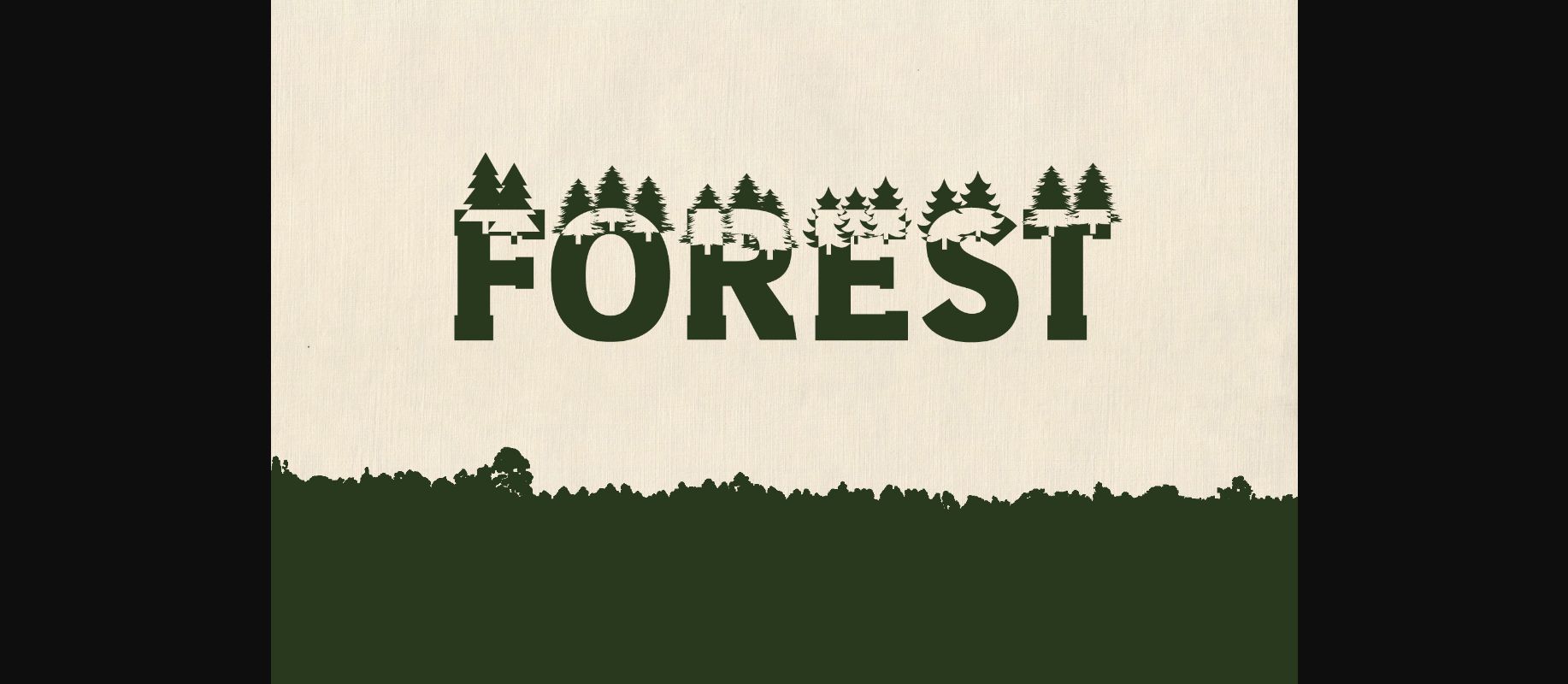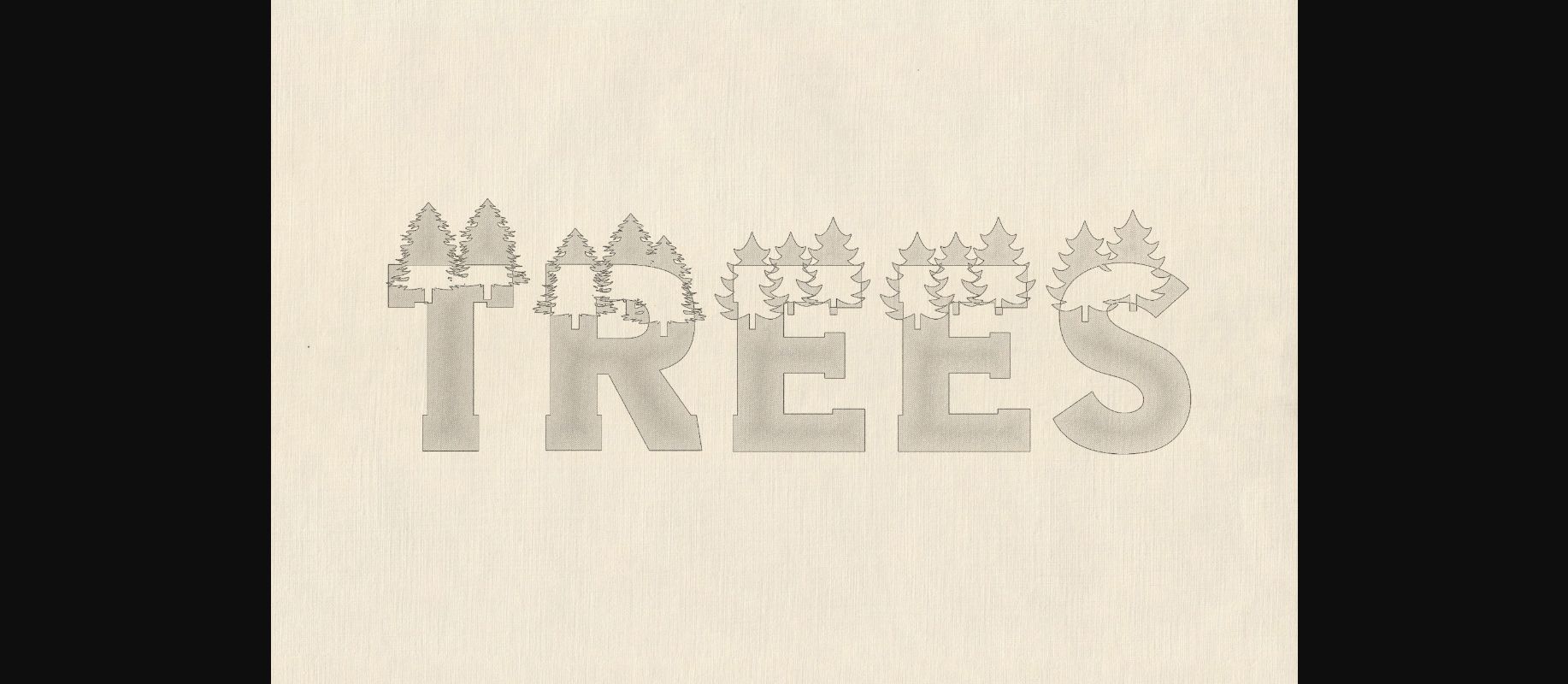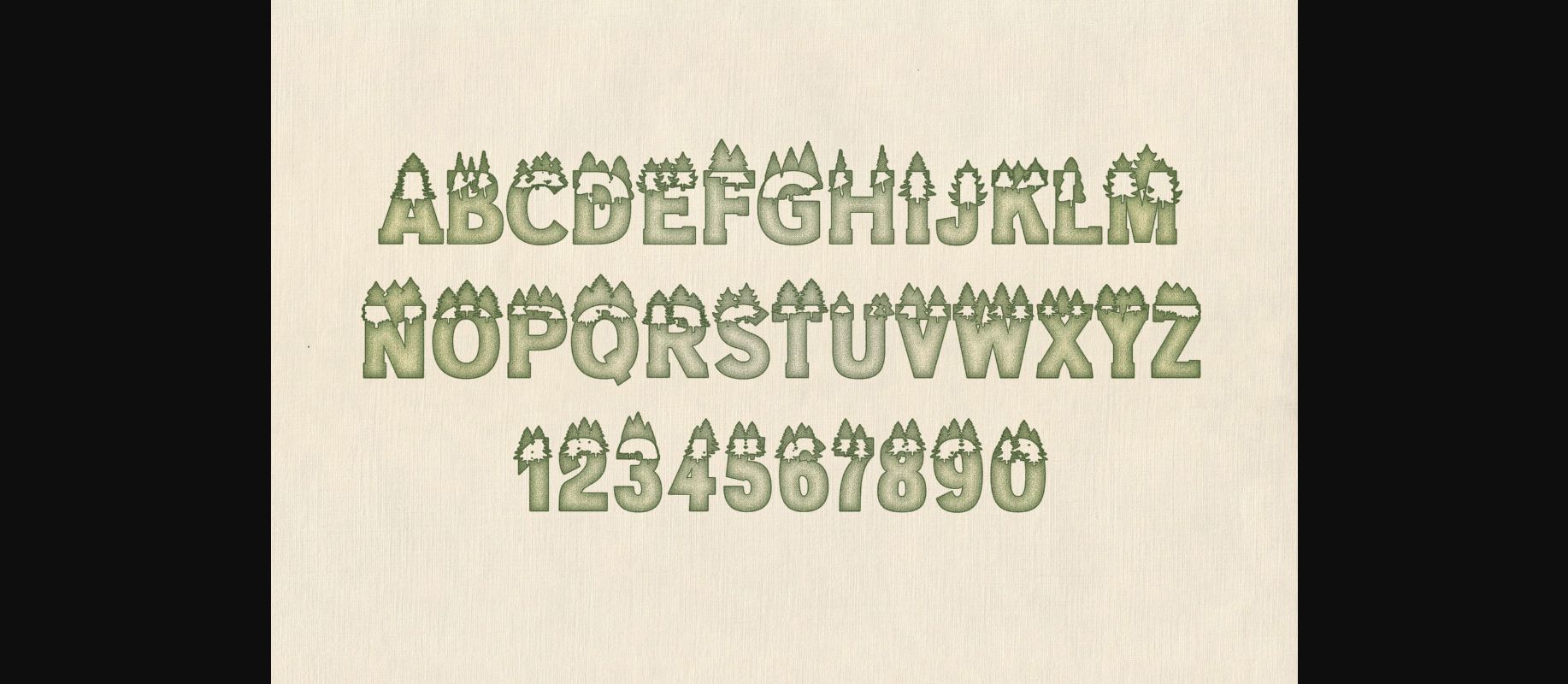
About Forest Font
Create gorgeous and timeless designs with Forest, an interesting and unique decorative font.
Fall in love with its incredibly stylish look and use it for logos, quotes, invitations, business cards, power point presentations, and more!